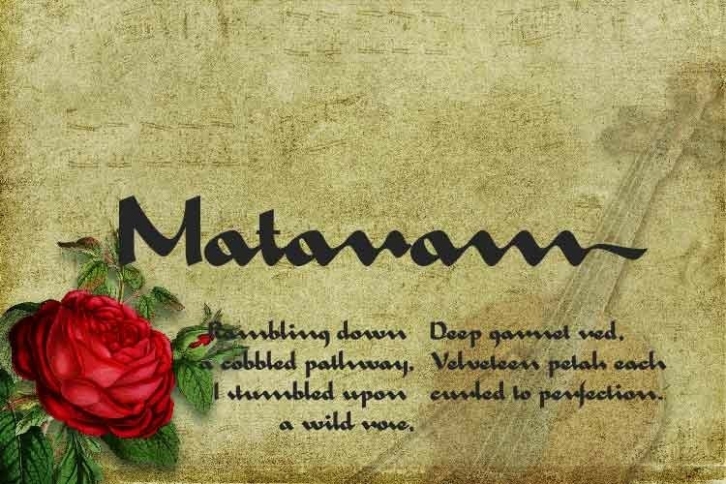
Mataram is a great font that was designed by Hazztype. Imagine the amount of combinations you can create using this font! The archive is 1.93 MB and it was released on September 10, 2021. Mataram looks beautiful on wedding invitations, greeting cards, logos, posters, labels, t-shirt designs, logos, business cards and is perfect for use in ink or watercolor works, fashion, magazines, packaging and food menus, children's books and more!